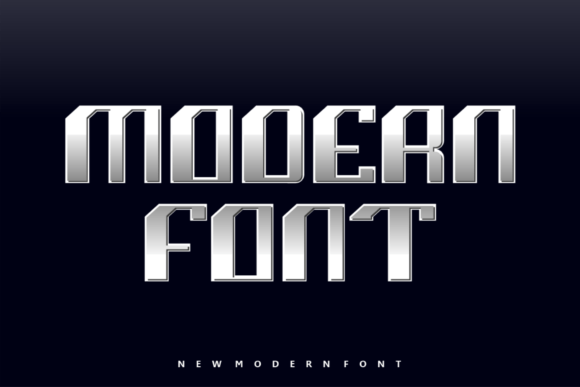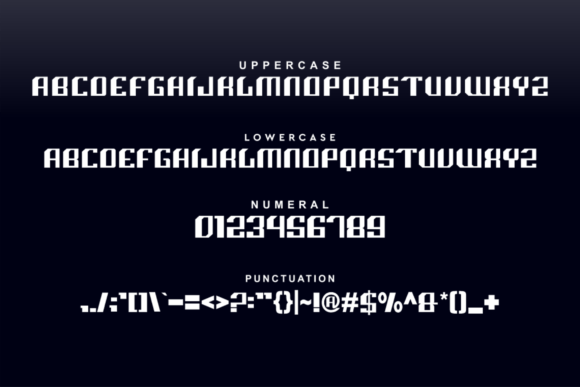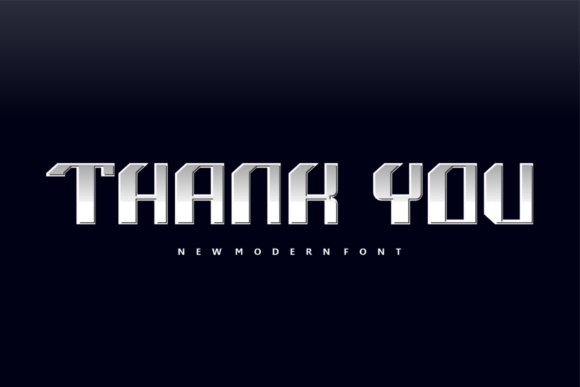
The Power of Black Signal Font: Elevate Your Designs with a Futuristic Twist
With its sleek, modern design and futuristic vibe, Black Signal instantly elevated my project to the next level. I was amazed by the outcome, and I knew right then and there that I had to share this fantastic font with fellow designers, crafters, and creative hobbyists.
So, what makes Black Signal Font so special? Here are a few things that I absolutely love:
- ✅ Futuristic and cool: Black Signal has a unique, otherworldly quality that adds a touch of sophistication to any design project.
- ✨ Highly versatile: Whether you’re working on a logo, a poster, or a social media graphic, Black Signal adapts seamlessly to different contexts and styles.
- ✅ Easily readable: Despite its futuristic design, Black Signal is surprisingly easy to read, even at smaller font sizes.
Of course, no font is perfect, and Black Signal has a few minor quirks:
- ⚠️ Limited use of OpenType features: While Black Signal supports some basic OpenType features, it doesn’t offer the full range of advanced typographic capabilities.
- 🤔 May not be suitable for body text: Due to its bold, futuristic design, Black Signal is best used as a display font or for headings, rather than body text.
One of the best things about Black Signal Font is its support for OpenType features and glyphs. Here are a few tips on how to make the most of these features:
- Stylistic alternates: Black Signal offers a range of stylistic alternates that allow you to customize the font’s appearance. Experiment with different alternates to find the one that works best for your project.
- Glyphs: The font includes a range of glyphs and special characters that can add visual interest to your designs. Use these glyphs to create unique and eye-catching graphics.
The Designer Inspiration Behind Black Signal Font
According to its creators, Black Signal Font was inspired by the futuristic landscapes of sci-fi movies and the sleek, modern design of cutting-edge technology. The font’s designers aimed to capture the essence of a futuristic world, where technology and innovation reign supreme.
| Font Name | Black Signal Font |
| What is Black Signal Font best used for? | Black Signal Font is best used as a display font or for headings, particularly in projects that require a futuristic or technological feel. |
| Does Black Signal Font support OpenType features? | Yes, Black Signal Font supports some basic OpenType features, including stylistic alternates and glyphs. |